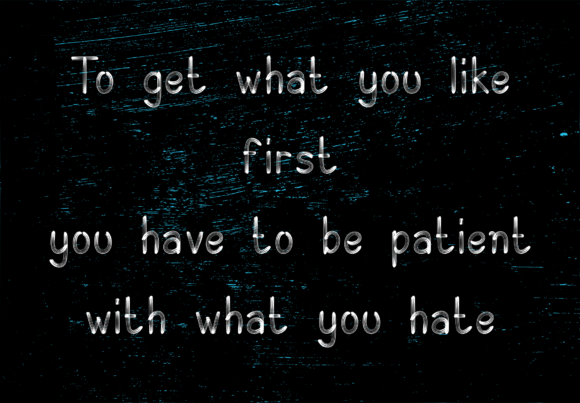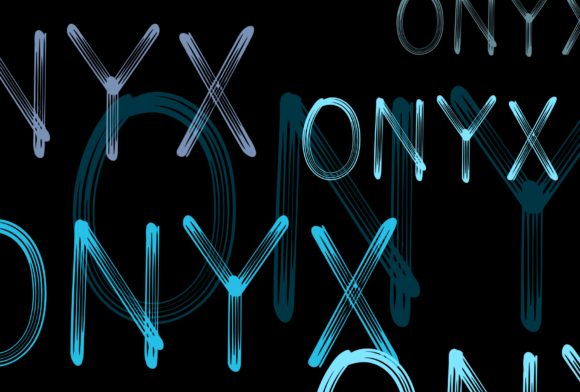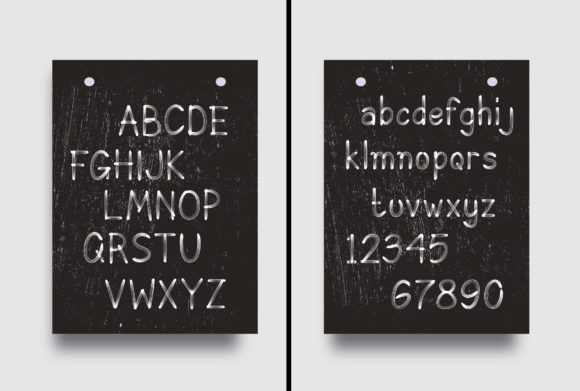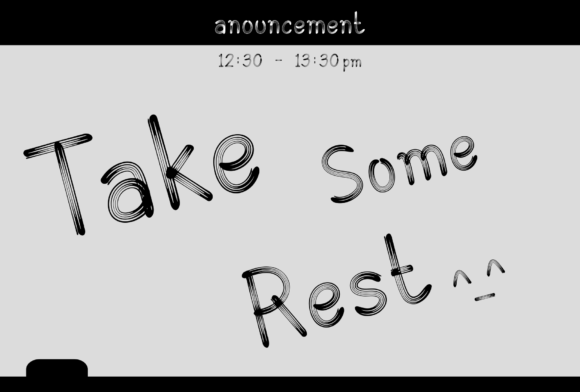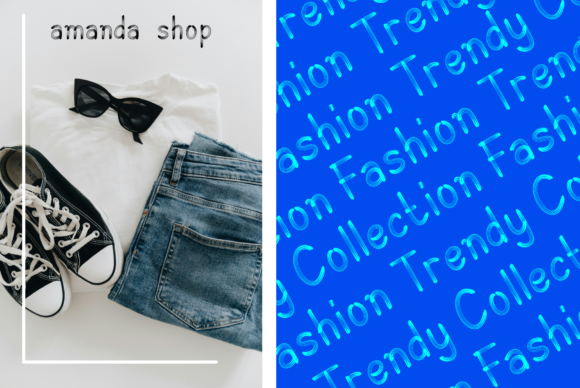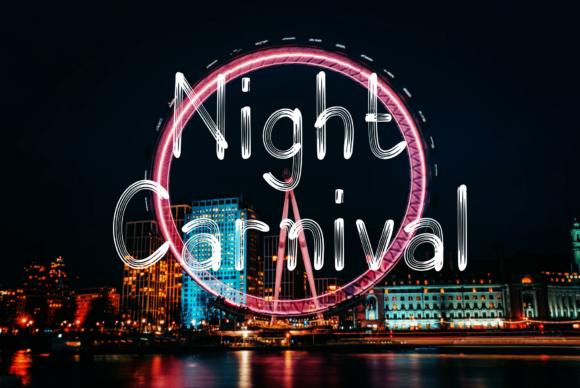
Have you ever stared at a blank page, waiting for inspiration to strike? For designers, this moment can be both exhilarating and intimidating. But what if you had the perfect tool to spark your creativity and bring your vision to life? Introducing the Frozen Font, a game-changing pen brushed handwritten font that’s about to become your new go-to companion.
This sleek, clean, and smooth font is designed to add a touch of elegance to any design project. Whether you’re working on a branding campaign, a website, or a social media graphic, the Frozen Font is sure to elevate your work and leave a lasting impression. Its versatility and unique character make it a valuable asset for designers looking to add a personal touch to their creations.
- Unique Characteristics: Frozen Font features a unique, hand-drawn design with intricate details and subtle texture, giving it a distinctive and elegant appearance.
- Kerning and Ligatures: Frozen Font includes advanced kerning and ligature pairs, ensuring smooth and professional-looking text.
- The Frozen Font has a beautiful, icy aesthetic that immediately catches the eye. It’s perfect for winter-themed projects or anything that needs a touch of frosty charm.
- The font is highly customizable, with a range of sizes, colors, and effects to choose from. This makes it easy to adapt to different design needs.
- The font is also surprisingly versatile, working well for both digital and print projects.
- The Frozen Font is a bit on the heavier side, which can make it difficult to read at smaller sizes. This might be a problem for projects where clarity is crucial.
- The font’s icy aesthetic can also feel a bit overused, which might make it less appealing to designers looking for something more unique.
- Finally, the font’s customization options can feel overwhelming, especially for designers who are new to font design.
Overall, I’d say the Frozen Font is a solid choice for designers who want a versatile, customizable font with a unique aesthetic. However, it may not be the best fit for projects where clarity or uniqueness are top priorities.
– Creating winter-themed designs
– Adding a touch of elegance to wedding invitations or stationery
– Designing Christmas or New Year’s Eve promotional materials
– Experimenting with unique font effects and combinations in graphic design projects.